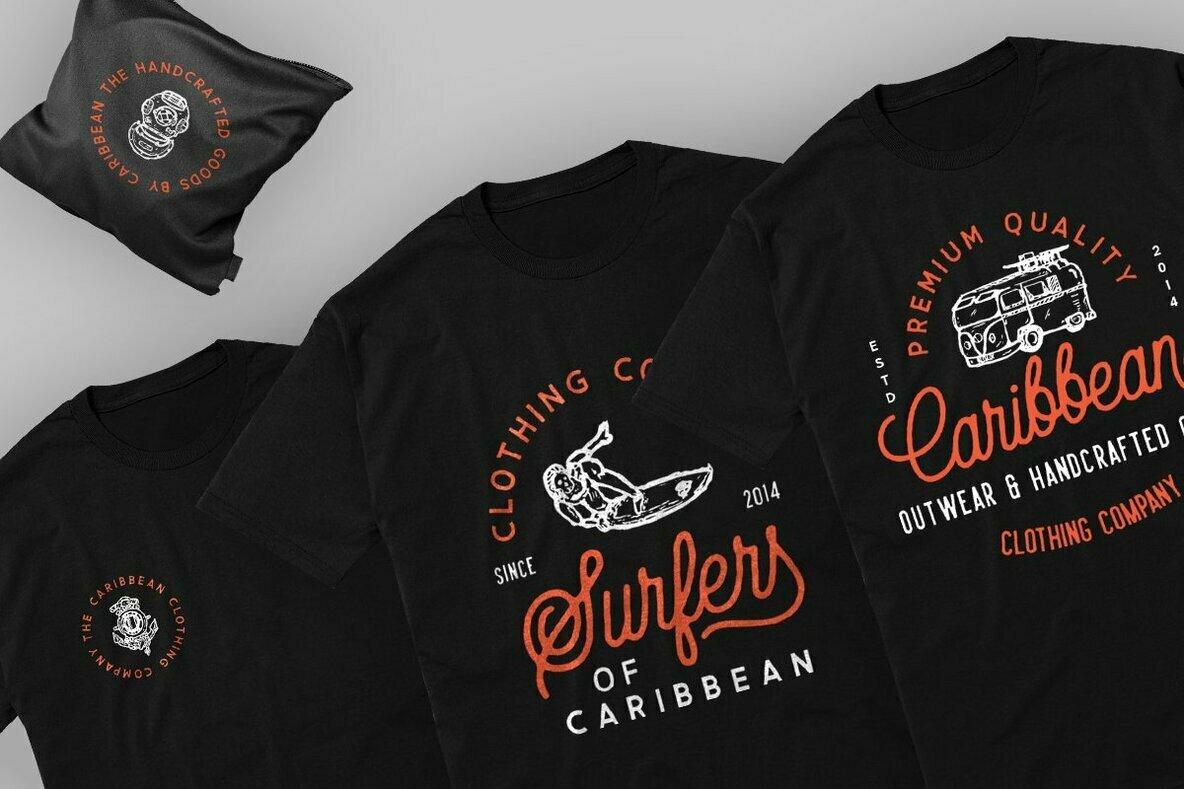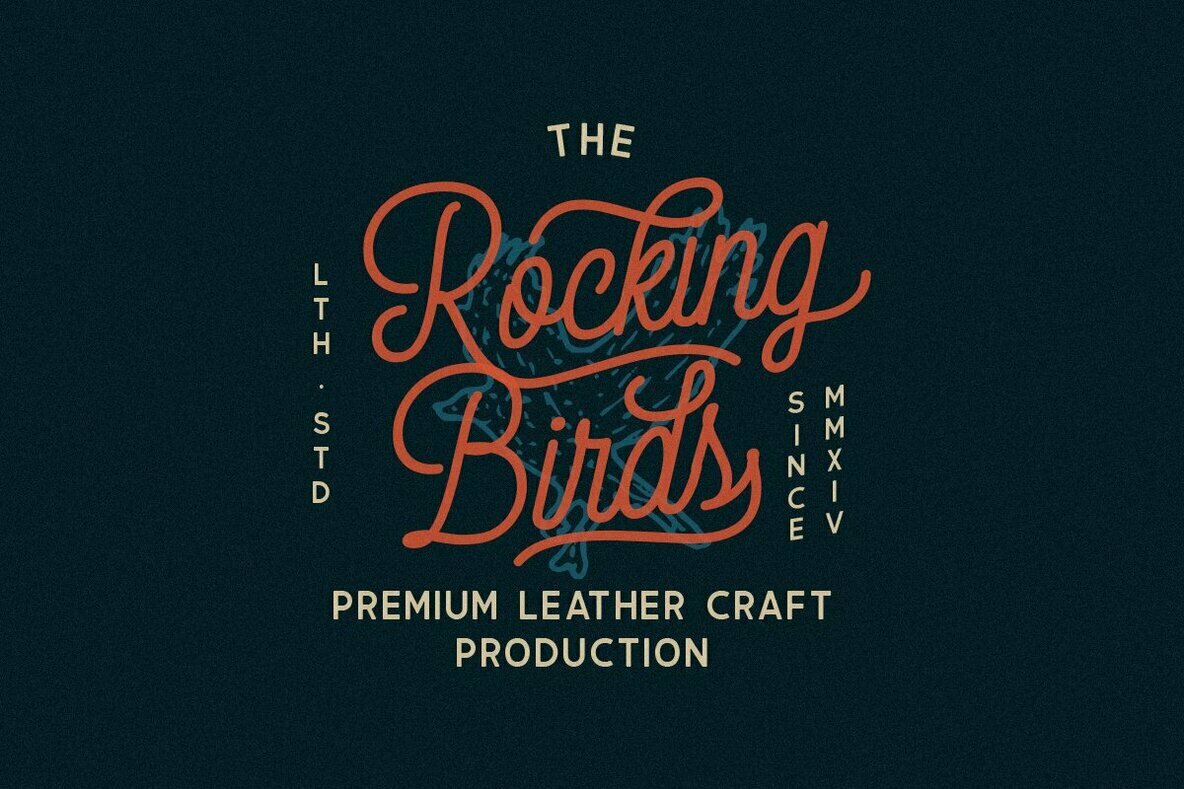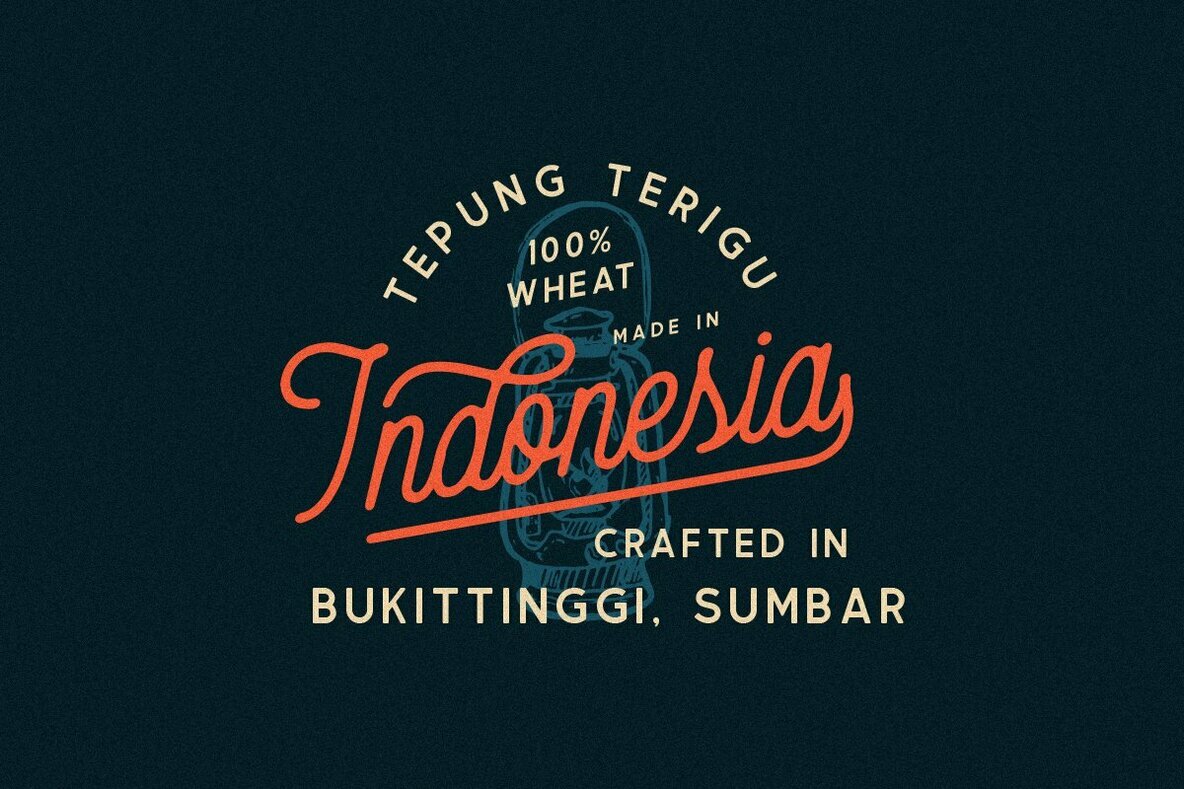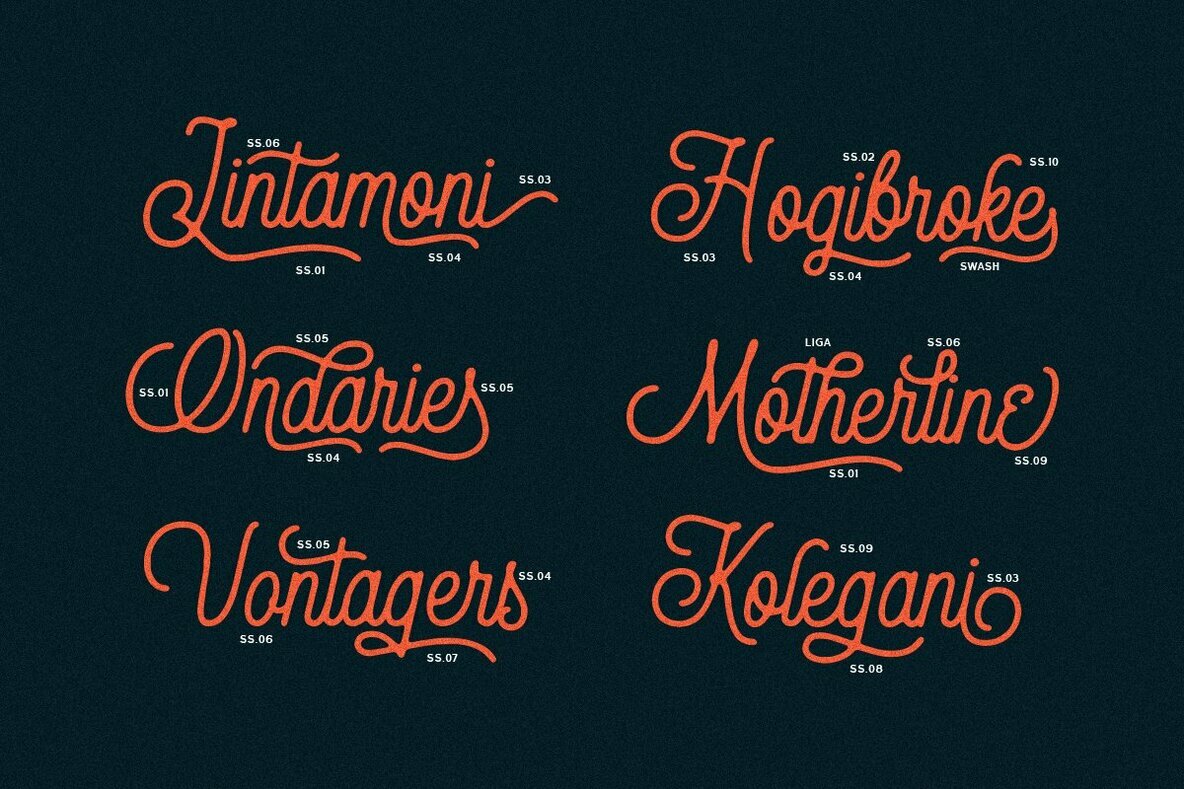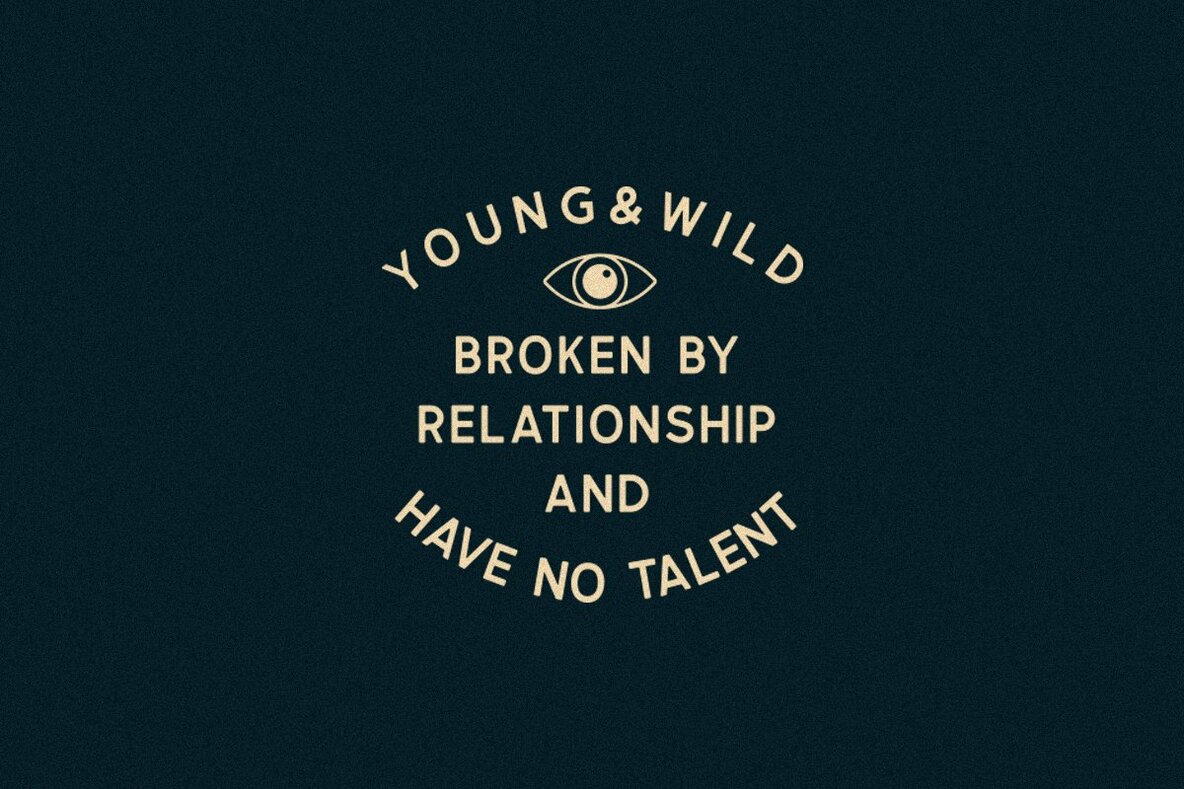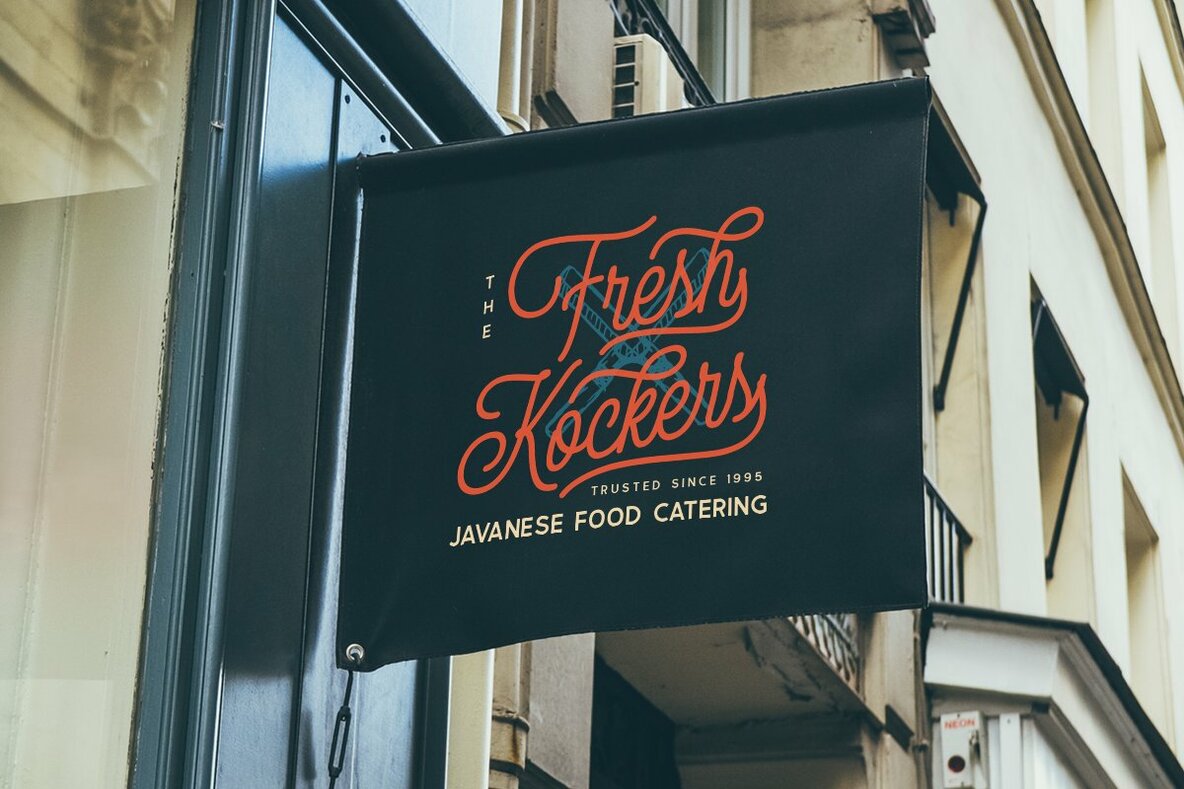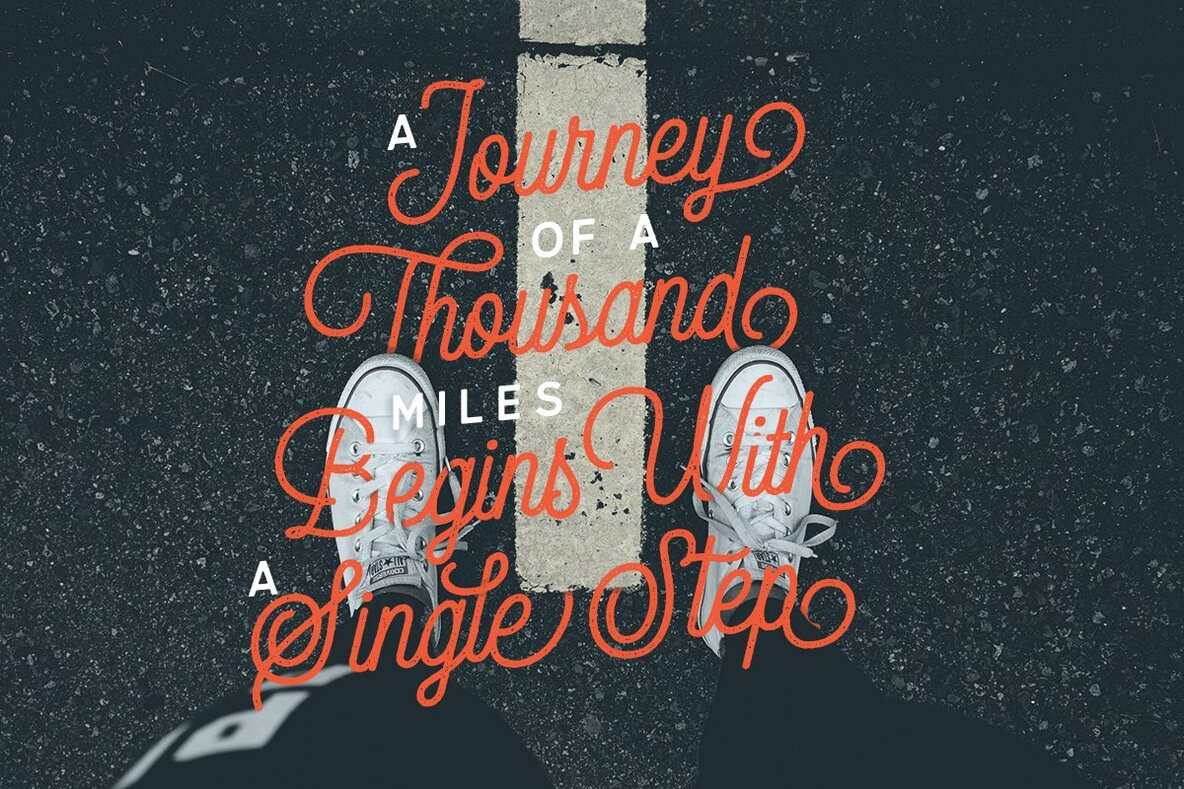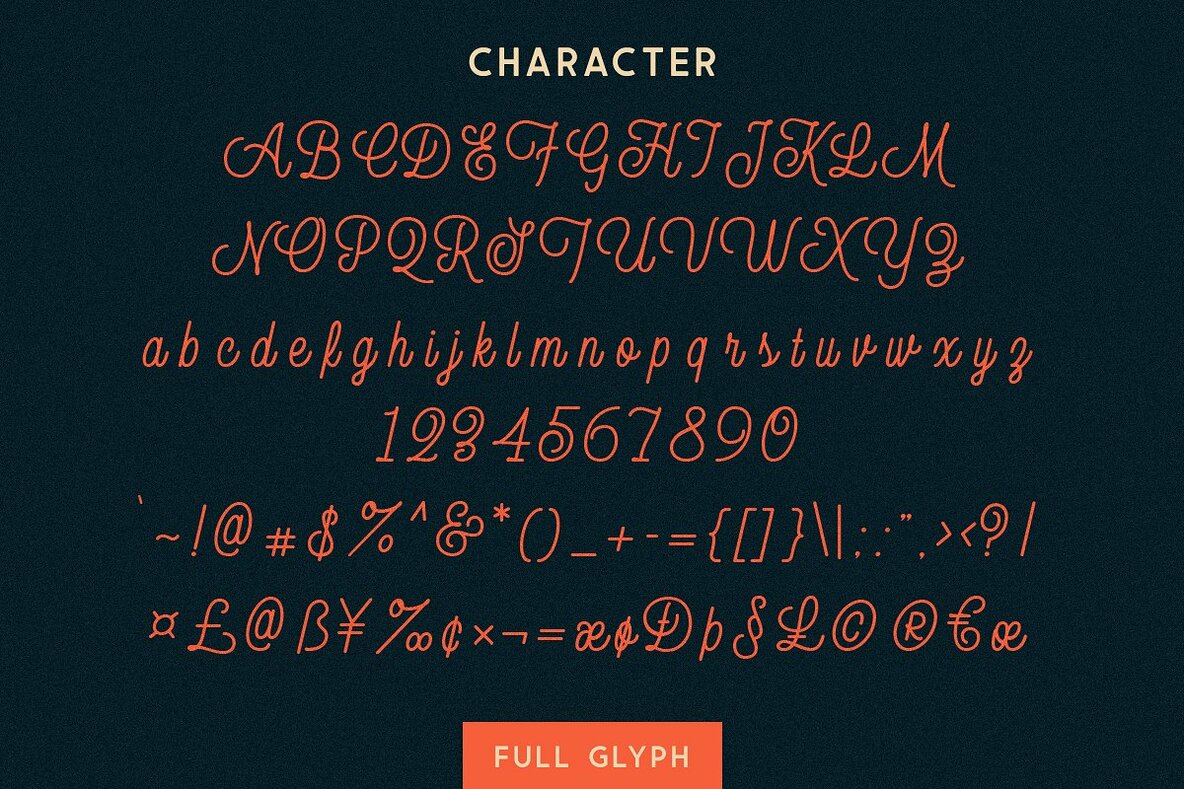
Thirdlone Font Duo
Thirdlone Font Duo, crafted by Letterhend Studio, seamlessly combines a monoline and sans-serif aesthetic. This handmade typeface isn't just about letters; it includes an impressive collection of over 100 hand-drawn vector illustrations. Themes like adventure, nature, animals, beach scenes, and holidays offer ample creative opportunities and pair perfectly with the font.Thirdlone Font Duo: Handmade with Versatile Illustrations